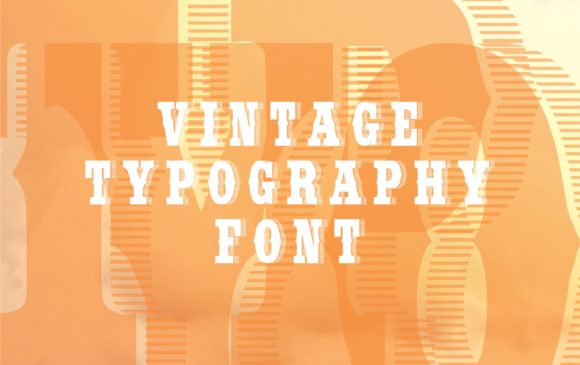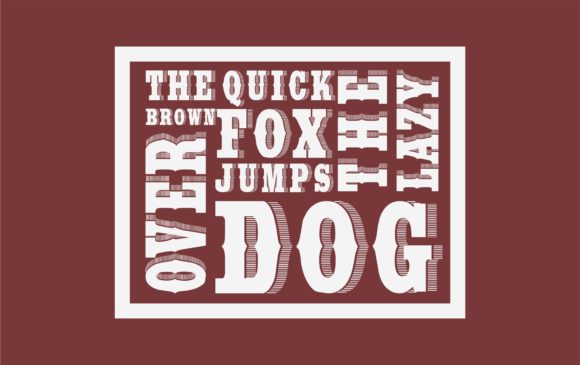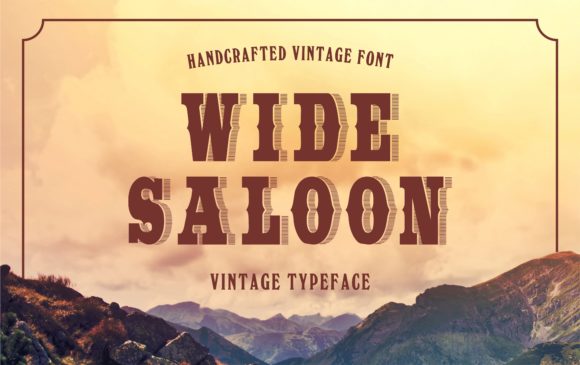
Wide Saloon Font
The Wide Saloon is a regular typeface with a western-like attitude. The letter`s are bold and have a right-sided thick shadow created by strike through lines.